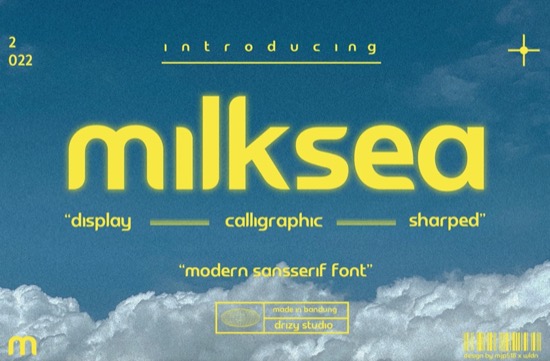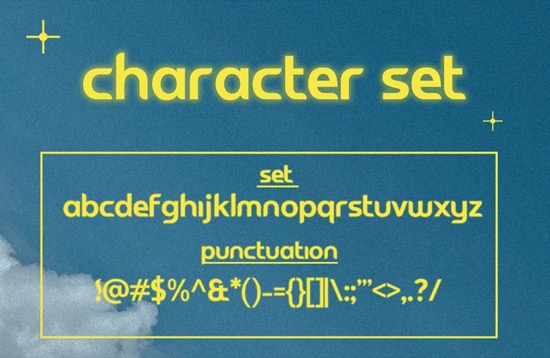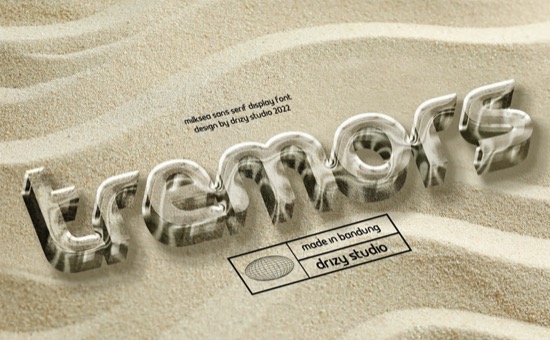
Milksea is a mesmerizing futuristic experimental decorative font that pushes the boundaries of traditional sans serif typography. Offering all the basic styles you will need for a modern theme of your project.
Milksea Features:
Uppercase and lowercase Numbers and punctuation Multilingual and ligatures
Milksea Display Sans Font